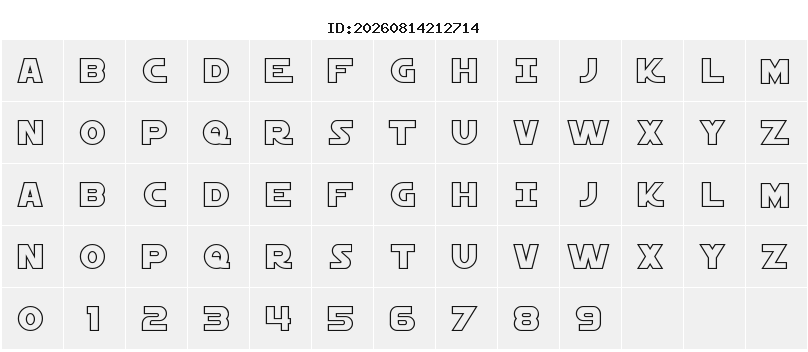
Starkiller Outline Preview
• Font Name: Starkiller Outline
• Designer: Neale Davidson
About Starkiller Outline.ttf
Starkiller Outline.ttf is a modern, elegant sans-serif font designed for ultimate readability and visual harmony. Perfect for branding, headlines, web design, and print materials.